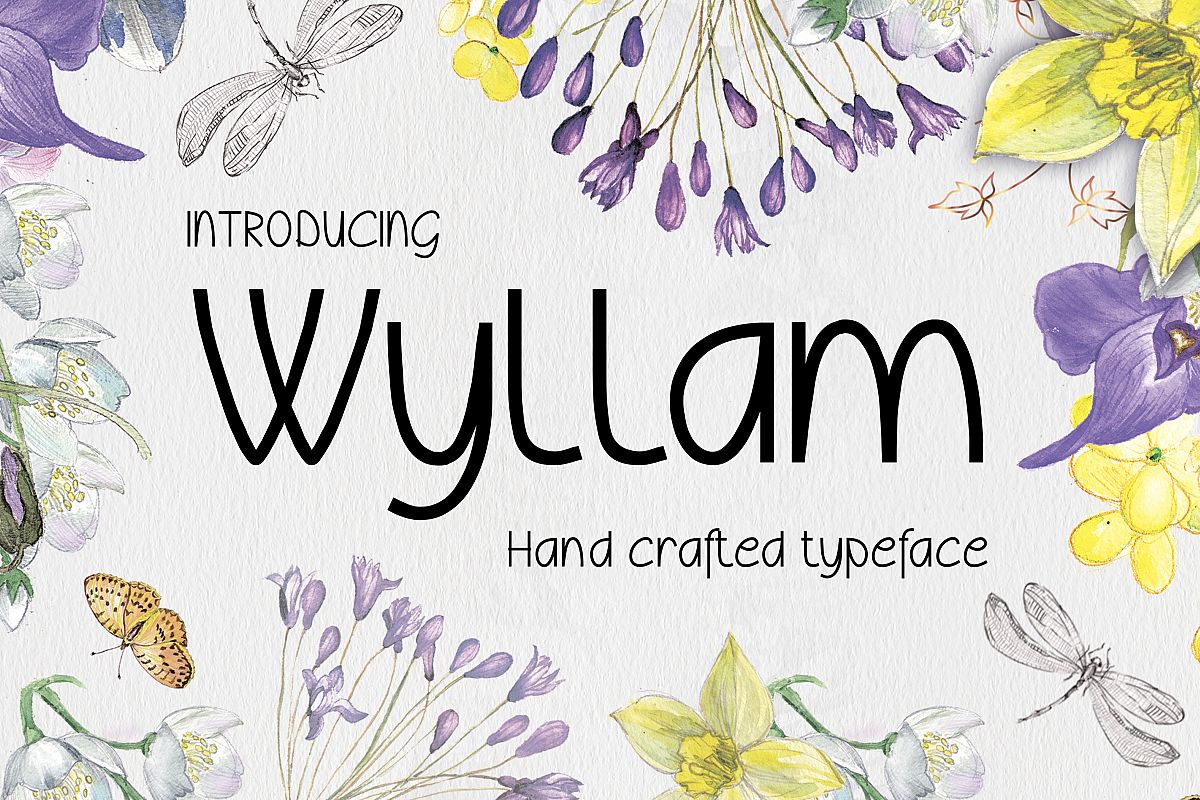
Wyllam Font
Wyllam
Introducing Wyllam, a hand crafted typeface.
Multi purpose use as it has upper cases, lower cases (extended with europian characters), numbers, punctuations and currency symbols.
Great for books, flyers, branding, titling, signage, logo, poster, flyers or t-shirts design, headlines, and more!
Wyllam Font